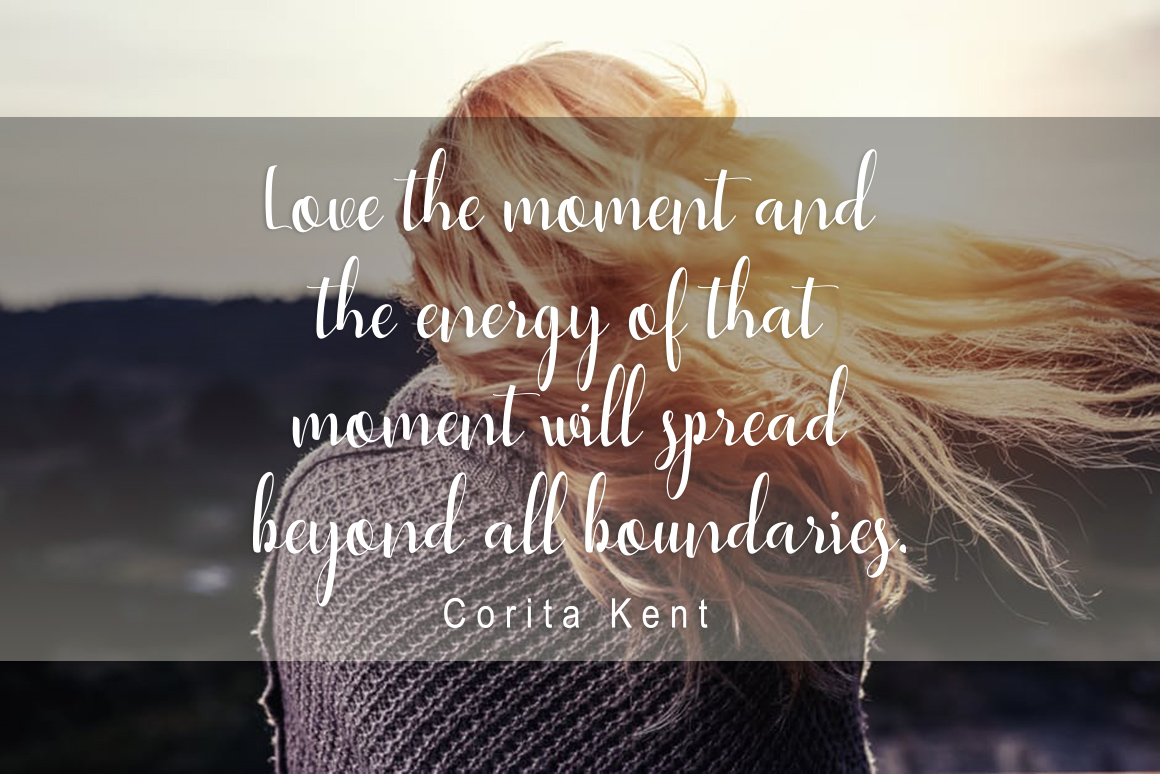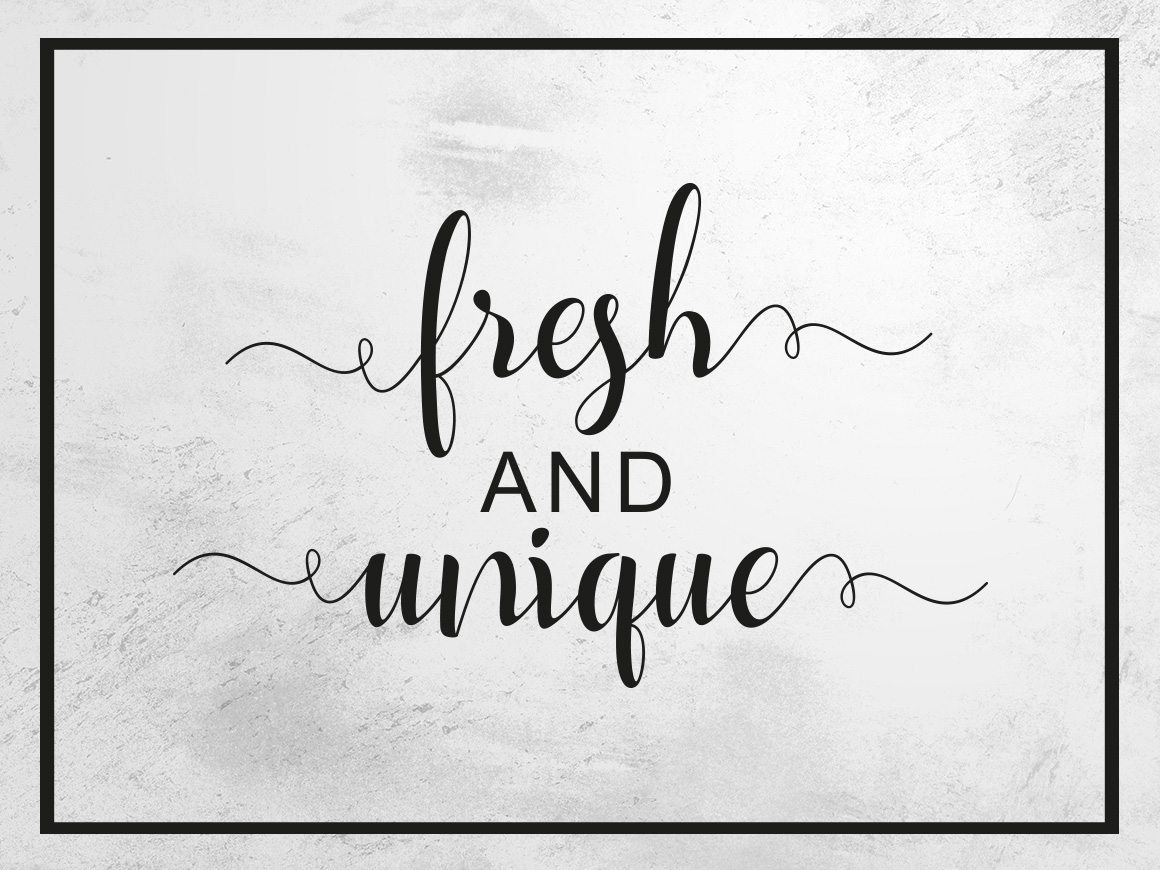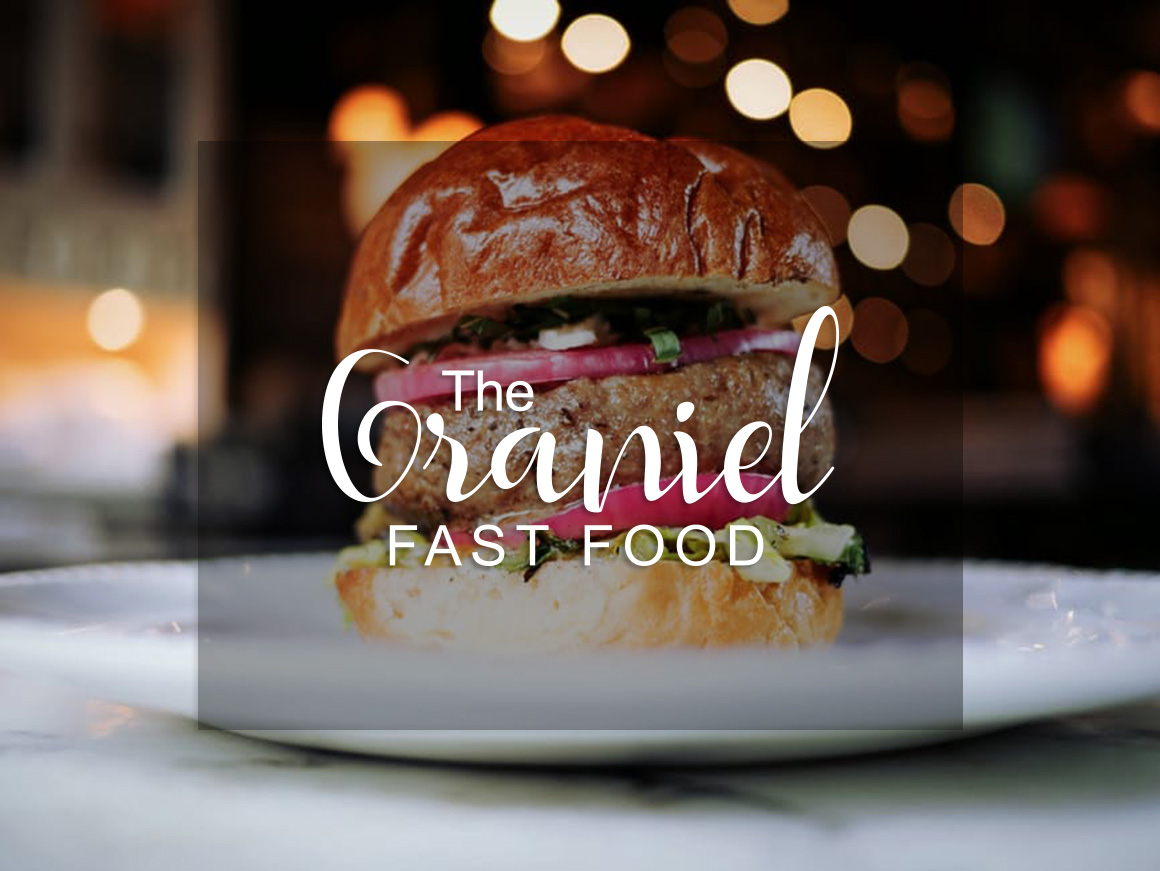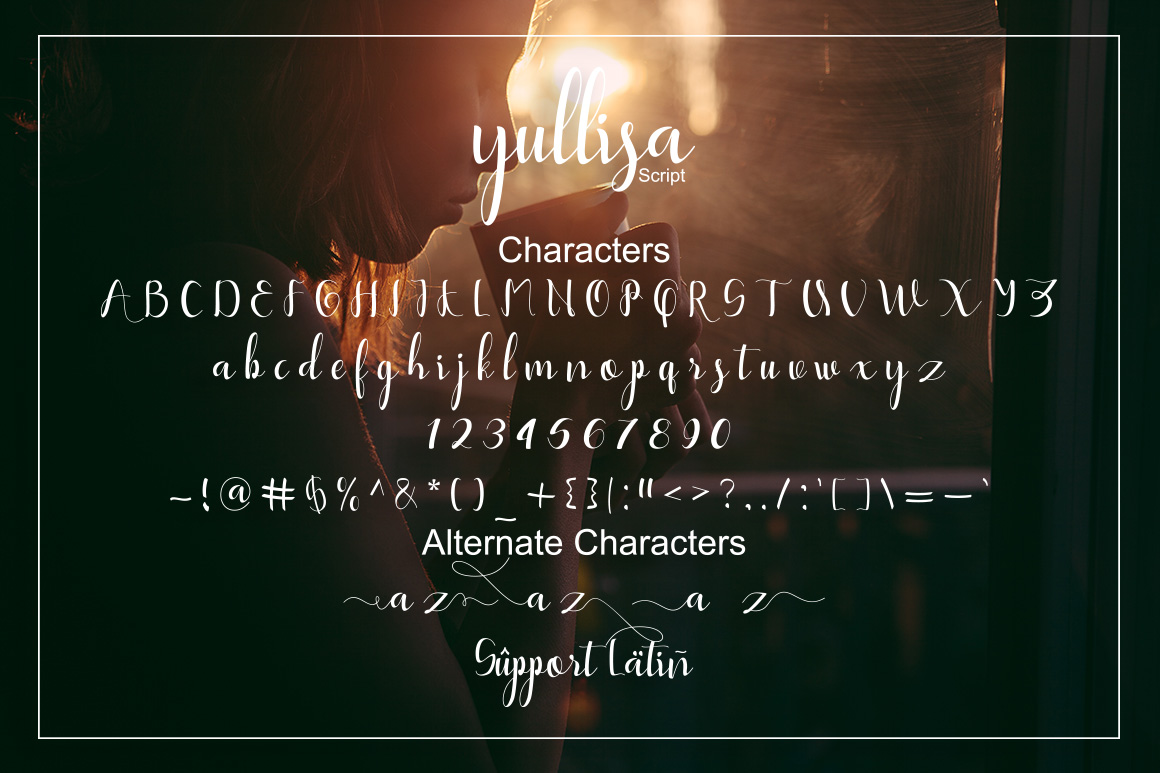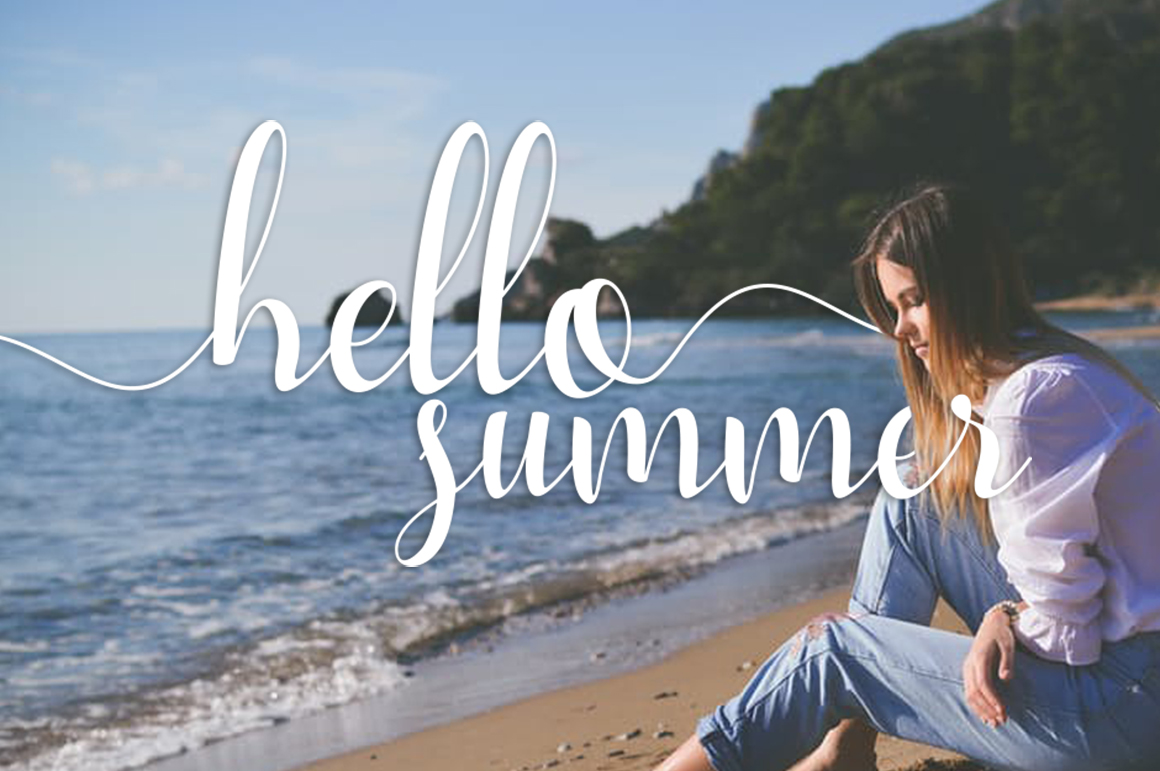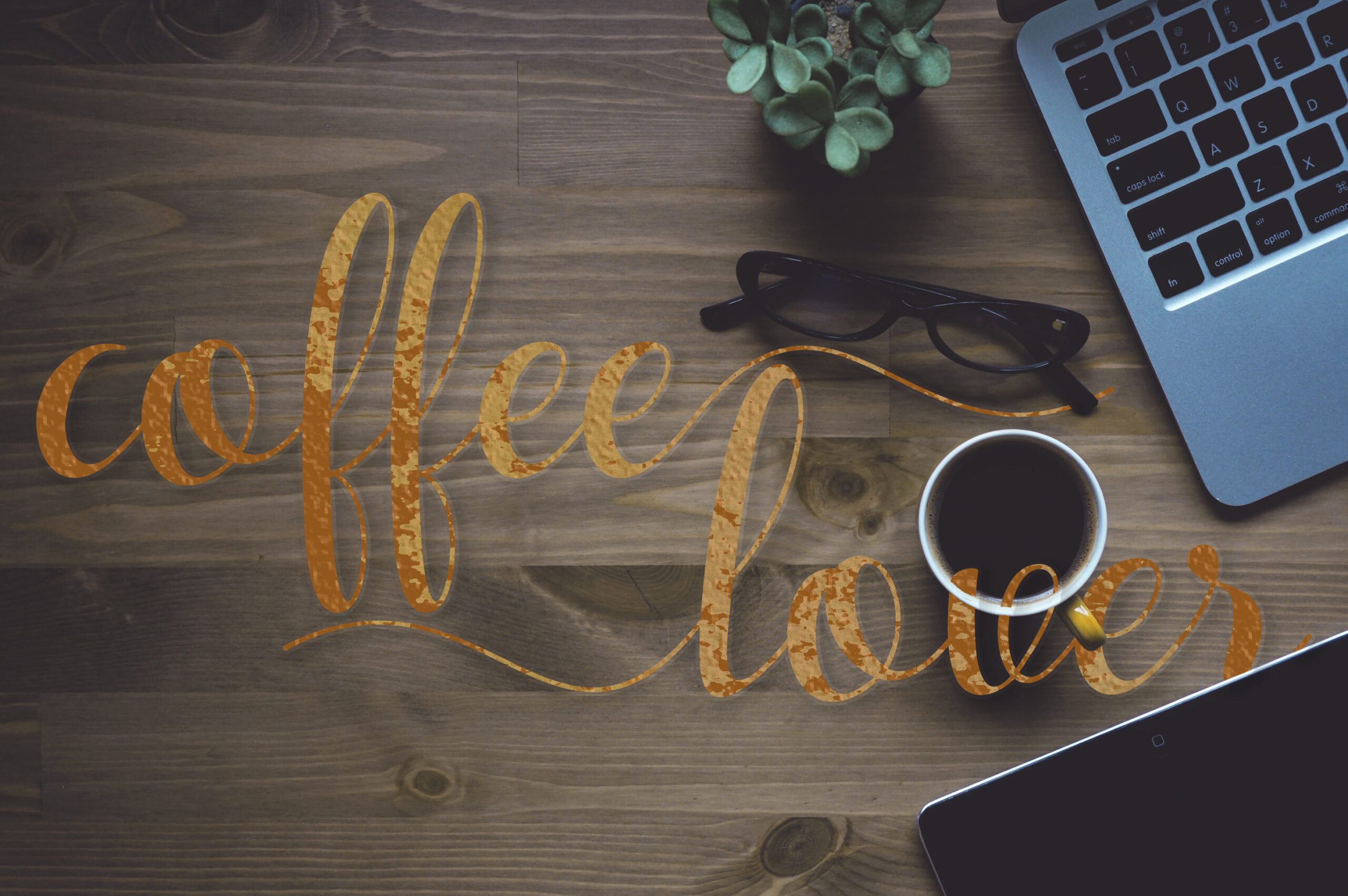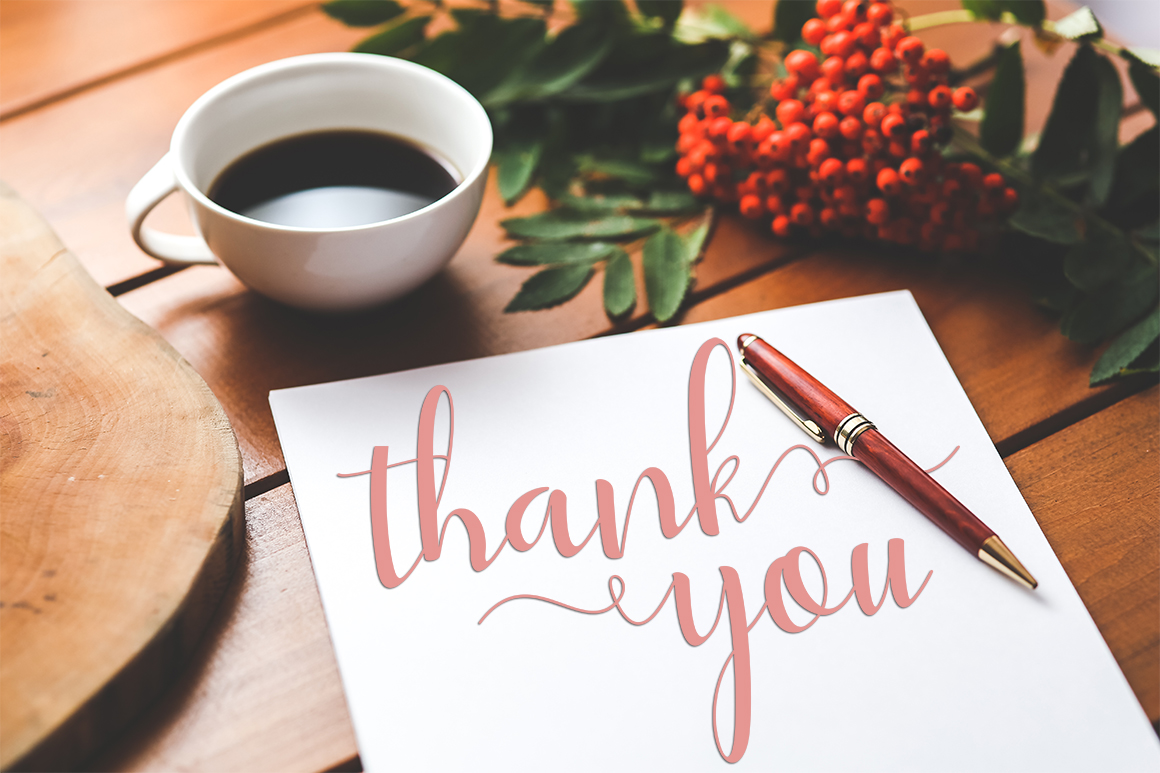
HomeScript FontsYullisa Script Font Script Fonts Yullisa Script Font FacebookXPinterestWhatsApp Yullisa Script Font Poster 2 Yullisa Script Font Poster 3 Yullisa Script Font Poster 4 Yullisa Script Font Poster 5 Yullisa Script Font Poster 6 Yullisa Script Font Poster 7 Yullisa Script Font Poster 8 About Yullisa Script Font Yullisa script, a stunning handwritten script. DOWNLOAD NOW People also explored Chandramaya Font Candy Grunge Font Hearts Font Lustra Text Sogeh Font Maytime Font Candy Saga Font Girly Valentine Font Krakal Font 297 0 TagsYullisa Script Font Previous articleBadger FontNext articleMellitta Script Font LEAVE A REPLY Cancel reply Comment: Please enter your comment! Name:* Please enter your name here Email:* You have entered an incorrect email address! Please enter your email address here Website: Save my name, email, and website in this browser for the next time I comment. Personal Use Free BD Lofi Personal Use Free Read more about this font Recharge Bold Personal Use Free Read more about this font Cottage Personal Use Free Read more about this font The Brighton Personal Use Free Read more about this font BLOG Fonts That Capture the Spirit of New York City New York City is more than just a place—it’s an experience, a rhythm, a visual language... Top 10 Handwritten Fonts That Elevate Your Designs Modern Sans-Serif Fonts That Brands Love in 2025 Transform Your Website: Elevate Your Typography with 7 Best Web Font Generators